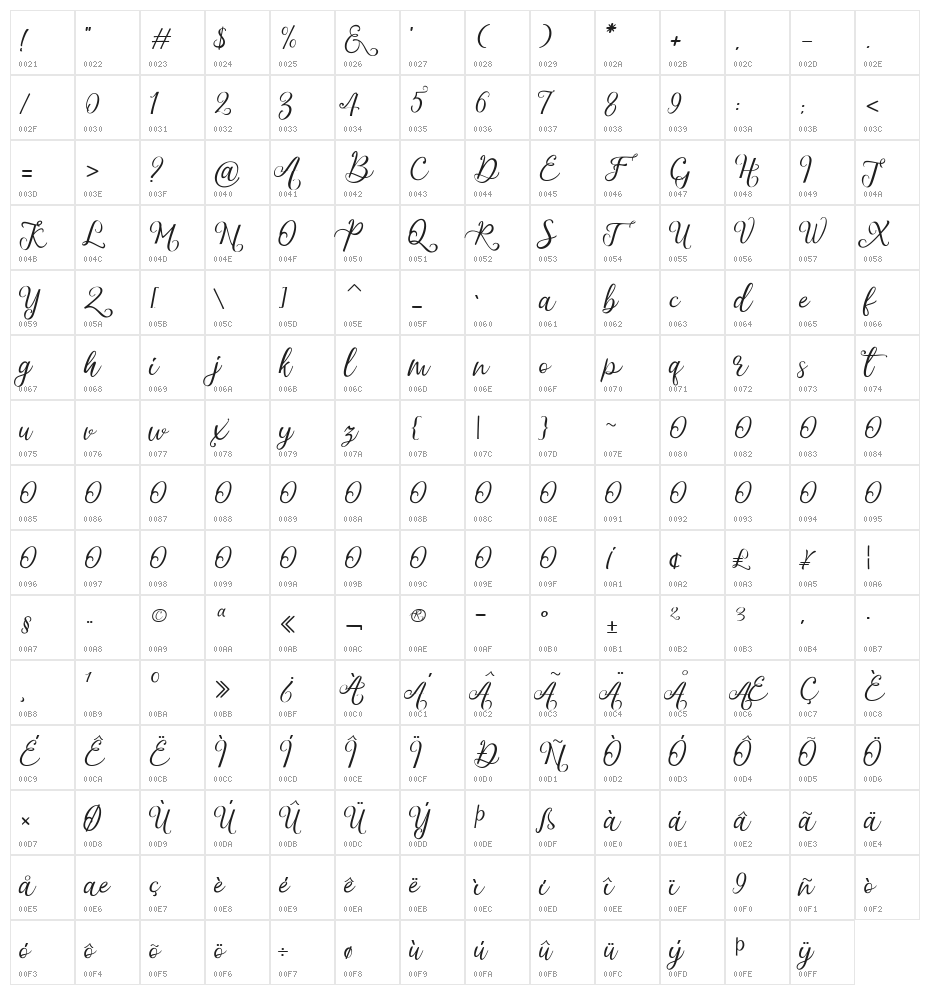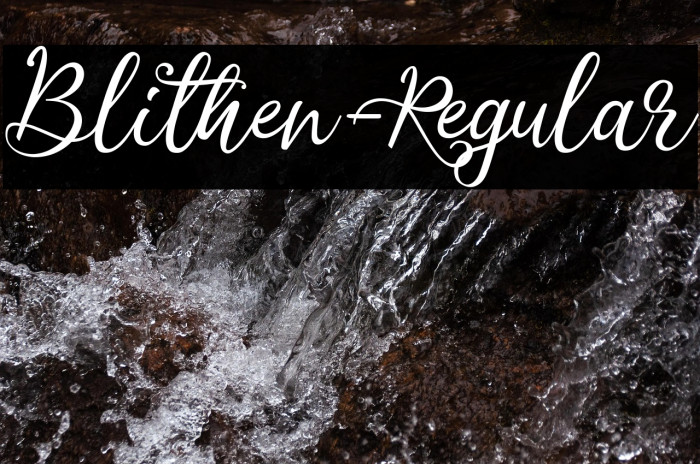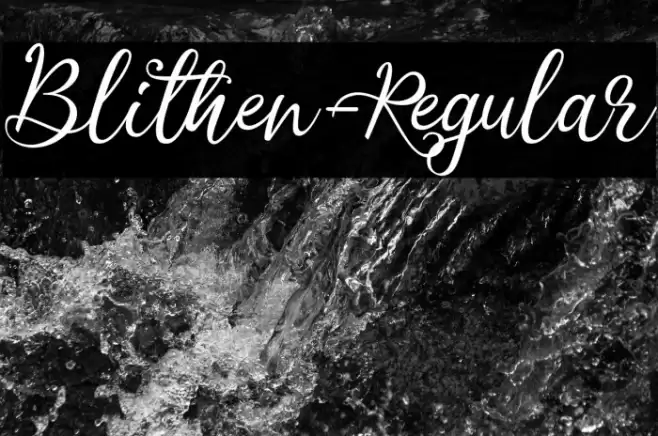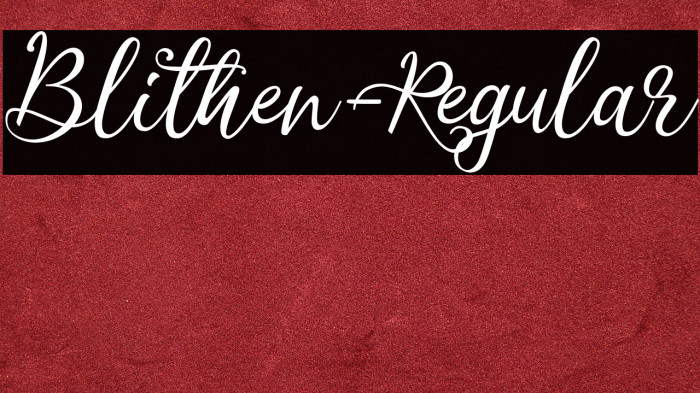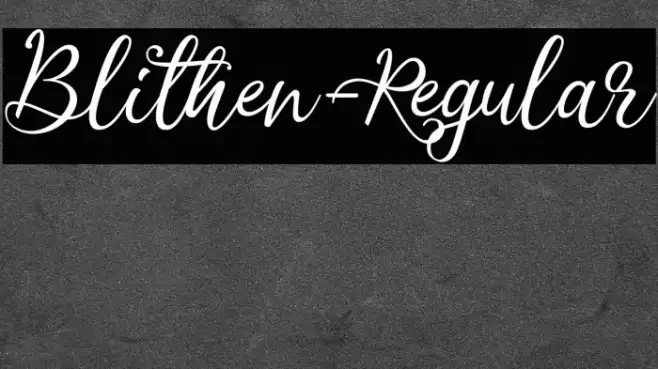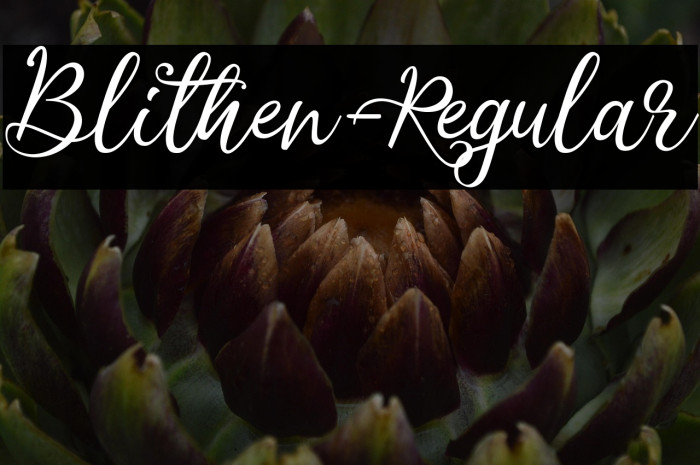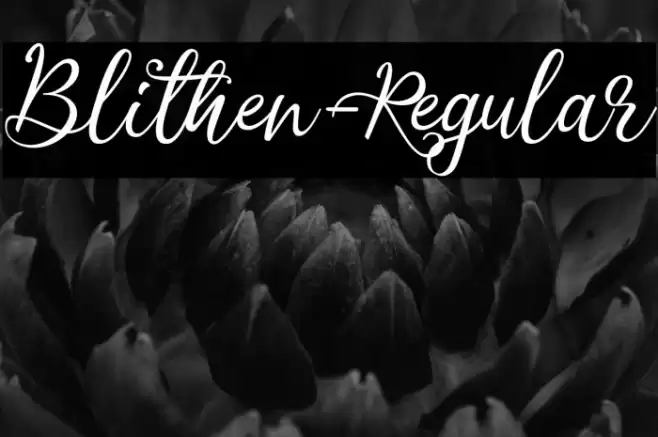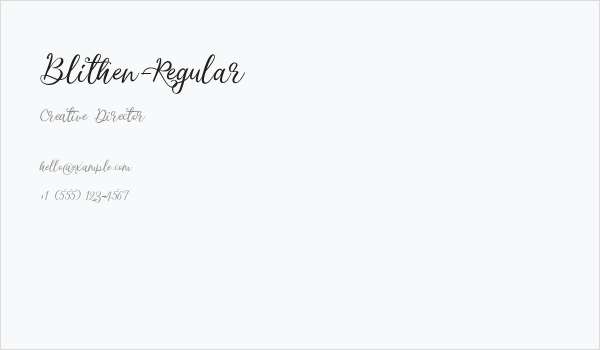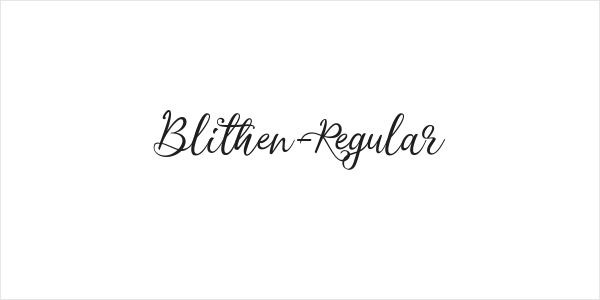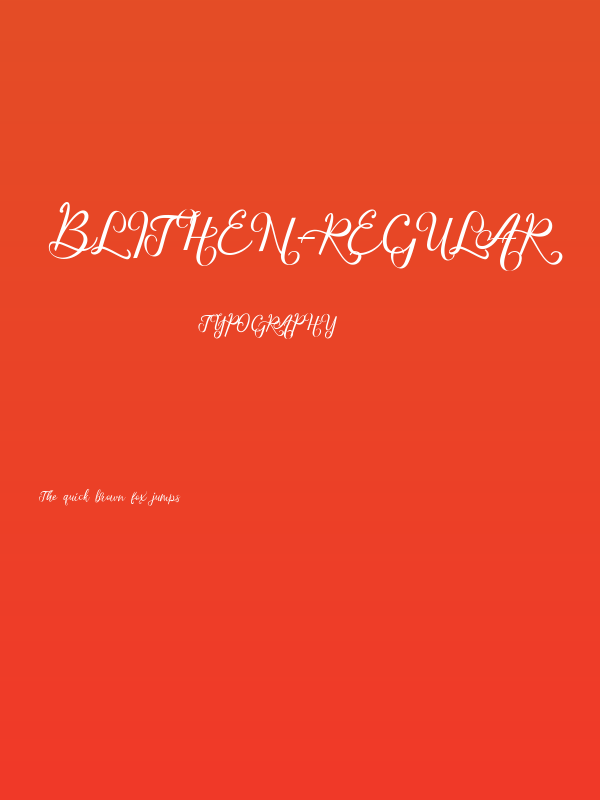
Blithen-Regular Font
Blithen-Regular Description
This elegant script font features flowing, cursive letterforms with a sophisticated and decorative style. The uppercase letters are adorned with intricate loops and flourishes, giving them a sense of movement and grace. The lowercase letters maintain a consistent flow, complementing the uppercase with their smooth curves and delicate connections. The numerals are equally ornate, with distinctive swashes that enhance their visual appeal. Special characters are designed with the same attention to detail, ensuring a cohesive look across all glyphs. This font exudes a sense of luxury and refinement, making it ideal for formal and creative applications.
| Proposed Projects | Ideal for wedding invitations, luxury branding, elegant packaging, and artistic posters. |